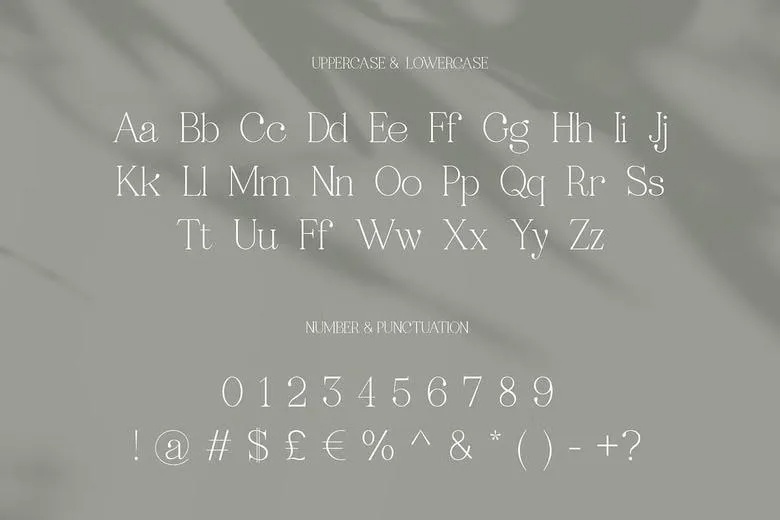
Ragille Font
Ragille is a refined, elegant, and stylish serif font with a beautifully crafted character set. Its smooth and balanced design makes it an ideal choice for various creative projects. Whether you’re designing invitation cards, company logos, movie titles, business cards, book covers, or brand identities, Ragille adds a touch of sophistication and charm to any design.